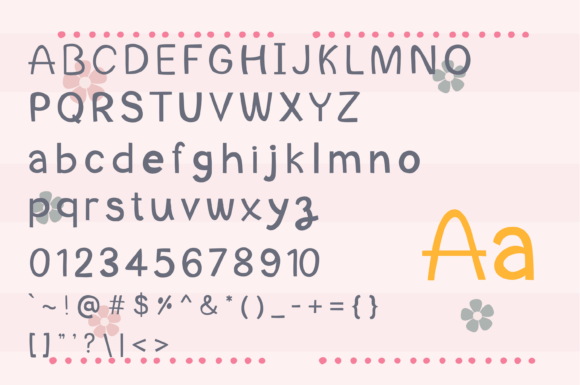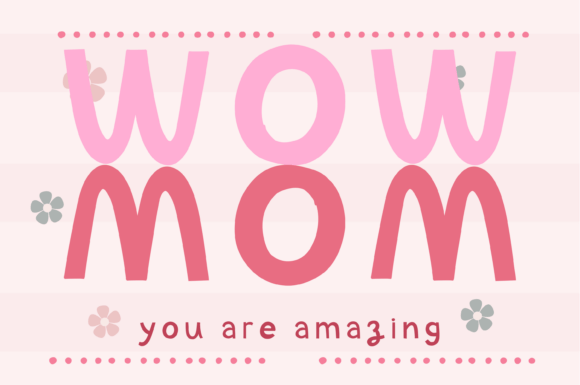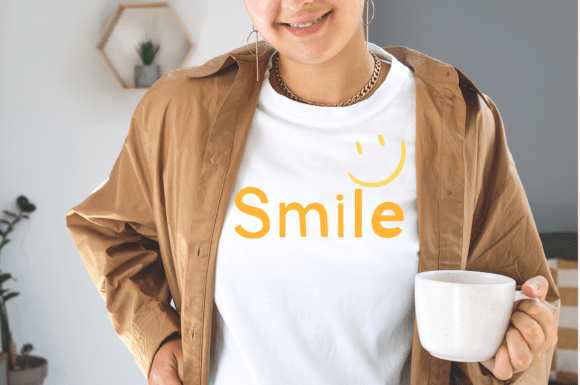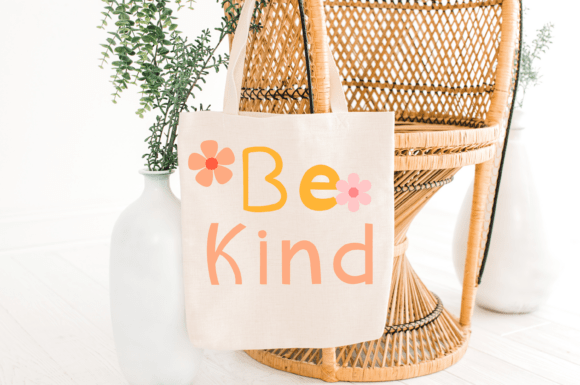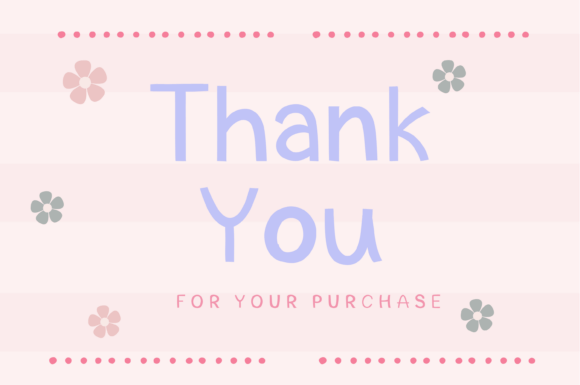
Introduction to Playful Twist Font
Have you ever found yourself scribbling notes in a journal, only to discover a hidden message or illustration that brings a smile to your face? That’s the magic of the Playful Twist Font, a charming and whimsical design resource that captures the essence of authentic handwriting.
As a designer, you know the value of a high-quality font that can elevate a creative project from ordinary to extraordinary. With its slightly irregular strokes and soft curves, the Playful Twist Font is the perfect choice for children’s books, invitations, or cheerful branding that needs a warm, casual appeal.
Key Features of Playful Twist Font
- Unique, hand-drawn design that adds a touch of whimsy to any creative project.
- Perfect for designers looking for a fun and playful font to add a creative twist to their designs.
Honest Review: Playful Twist Font
I recently came across the Playful Twist Font, a design resource that’s been making waves in the creative community. I was excited to dive in and see what all the fuss was about.
What works well: ✨ The font is incredibly versatile, perfect for a variety of creative projects. I loved the way it added a playful touch to my designs without feeling too over-the-top. The high quality of the font is also evident, with smooth lines and crisp details that make it a joy to work with.
However, there are a few limitations to consider: ⚠️ The font is a bit limited in its character set, which may not be ideal for projects that require a wide range of characters. Additionally, the font’s playfulness can sometimes feel a bit too much, making it less suitable for more formal designs.
Overall, I’d say the Playful Twist Font is a solid addition to any designer’s toolkit. While it may not be perfect, its versatility and high quality make it a great choice for a variety of creative projects.
Tips for Getting the Most Out of Playful Twist Font
Experiment with different font sizes, colors, and combinations to create a unique look. Use it in conjunction with other high-quality design elements to elevate your creative project.
The Playful Twist Font is ideal for creating eye-catching titles, headings, and quotes. It’s also perfect for branding, social media graphics, and marketing materials that require a playful and creative touch.
Alternatives to Playful Twist Font
Pacifico is a high-quality, elegant script font that is perfect for creative projects requiring a touch of sophistication. It features a transparent background, making it ideal for use on various design elements. Use Pacifico when you need a refined and luxurious look for your design.
Pacifico compares to Playful Twist Font by offering a more formal and polished appearance, ideal for projects requiring a higher level of sophistication. While Playful Twist Font is more playful and energetic, Pacifico is better suited for corporate or high-end branding projects.
Great Vibes is a beautiful, hand-drawn font that is perfect for designers looking for a unique and creative design resource. It features a free download option and is suitable for various design elements, including logos and typography. Use Great Vibes when you need a fun and quirky look for your design.
Great Vibes compares to Playful Twist Font by offering a similar playful and energetic feel. However, Great Vibes is more whimsical and less structured, making it ideal for projects that require a more carefree and spontaneous look.